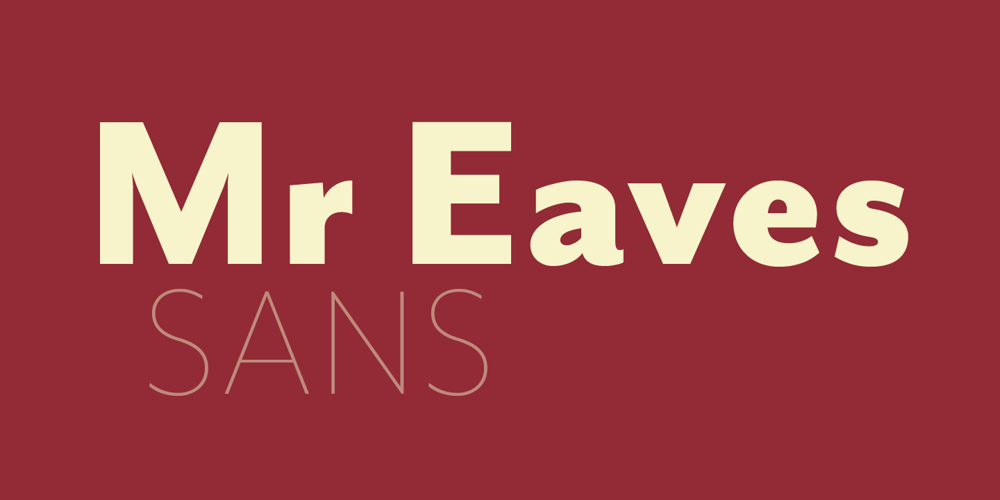
Mr Eaves Sans Font Family was designed by Zuzana Licko and published by Emigre. Mr Eaves Sans contains 12 styles and family package options. Mr Eaves is the sans-serif companion to Mrs Eaves, one of Emigre’s classic typeface designs. Created by Zuzana Licko, this 2009 addition to the Emigre Type Library expands the versatility of the original Mrs Eaves with two complementary families: Mr Eaves Sans and Mr Eaves Modern. Mr Eaves was based on the proportions of Mrs Eaves, but Licko took some liberty with its design. One of the main concerns was to avoid creating a typeface that looked like it simply had its serifs cut off. And while it matches Mrs Eaves in weight, color, and armature, Mr Eaves stands as its own typeface with many unique characteristics. The Sans version relates most directly to the original serif version, noticeably in the roman lower case letters a, e, and g, as well as in subtle details such as the angled lead in strokes, the counter forms of the b, d, p, and q, and the flared leg of the capital R, the tail of the Q. The distinctly loose-fitting letter spacing of Mrs Eaves was applied also to the Sans version. This, together with generous built-in line spacing due to a small x-height and extended ascenders and descenders, renders the same kind of lightness and airiness when setting text that is so characteristic of Mrs Eaves. Deviations from the original Mrs Eaves are evident in the overall decrease of contrast, as well as in details such as the flag and tail of the f and j, and the finial of the t, which were shortened to maintain a cleaner, sans serif look. And the lower case c had to be balanced out differently after it lost its top ball terminal. And with the loss of serifs, Mr Eaves set width is slightly narrower. Mr Eaves Italic also carries over many forms from its Mrs Eaves model, most notably the v, w, and z, which are unusually flamboyant for a sans italic design. It also utilizes lead in and terminal tails that are reminiscent of the serif italic. The biggest departure here is the width of the characters. The extra narrow gauge and delicate features seemed more appropriate for the Serif than the Sans. To allow for a comfortable fit, Mr Eaves Italic has a more robust design and wider character width. Meanwhile, the Modern family provides an overall less humanistic look, with simpler and more geometric-looking shapes, most noticeably in the squared-off terminals and symmetric lower case counters. This family has moved furthest from its roots, yet still contains some of Mrs Eaves’ DNA. The Modern Italic is free of tails, and overall the Modern exhibits more repetition of forms, projecting a cleaner look. This provides stronger differentiation from the serif version whenever a more contrasting look is desired. Each version (Sans and Modern) contains its own set of alternates providing unique options for applications such as headlines, word logos, letterheads, pull quotes, and other short text settings. Both the Sans and Modern come in three weights. The simpler forms of a sans-serif provide the opportunity of more weights than do serif letter forms, which are more complex in structure, making it difficult to accommodate additional weight without distortions. Regular and Bold match the original Mrs Eaves weights, while the Heavy provides an additional weight for extra emphasis.